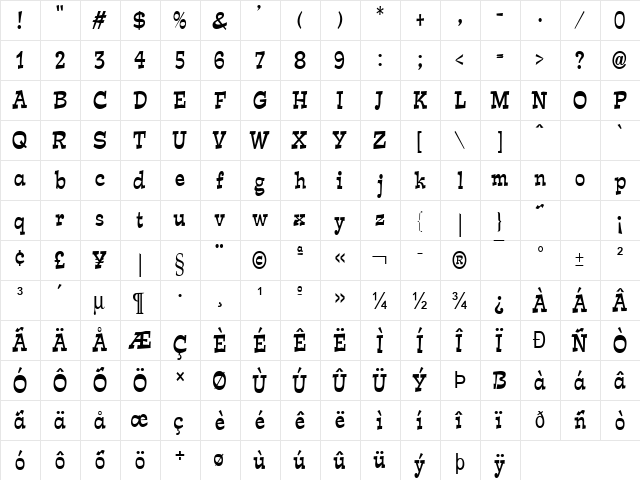
Expose Thin Condensed Bold Font Preview
Expose Thin Condensed Bold
Design Context for Expose Thin Condensed Typeface
Expose Thin Condensed is a composed and adaptable typeface that performs quietly and consistently across a wide range of design contexts. The heavy weight commands attention and anchors typographic hierarchies. Its narrow stance lets it pack a punch even in space-constrained designs.